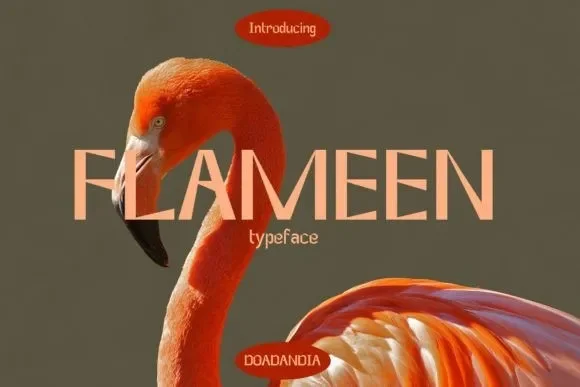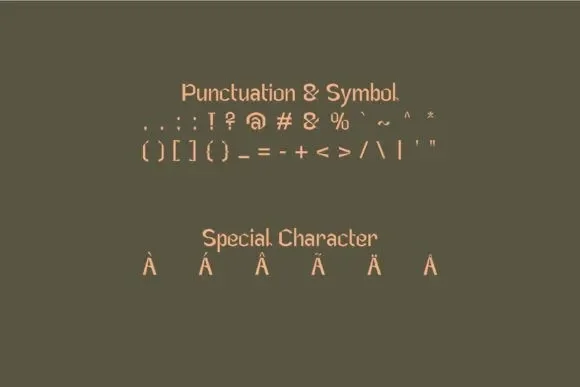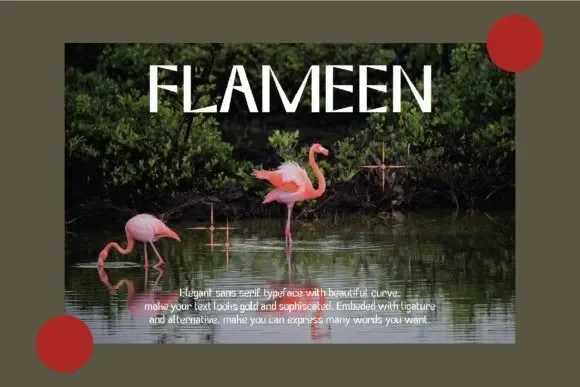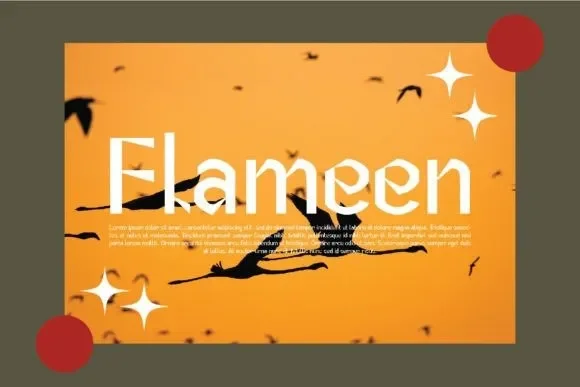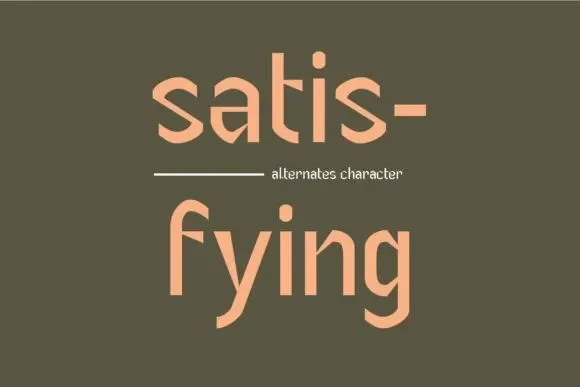
Flameen Font is a script display typeface designed to maintain readability while adding personality to logos, invitations, and digital signatures. Its flowing letterforms provide a human, handwritten feel.
The font features connected cursive letters, elegant swashes, and stylistic alternates for customization. Stroke contrast is moderate, ensuring visibility at various sizes. Ligatures enhance fluidity, making it suitable for creative branding and aesthetic social media content.